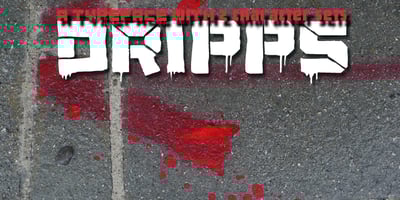
Dripps Font Family was designed by Gert Wiescher and published by Wiescher Design. Dripps contains 1 styles and family package options. Dripps is a handpainted, stenciled typeface with lots of drips and two different sets of capital letters – no lowercase. Sometimes I enjoy doing the rough stuff, your brutal type designer Gert Wiescher